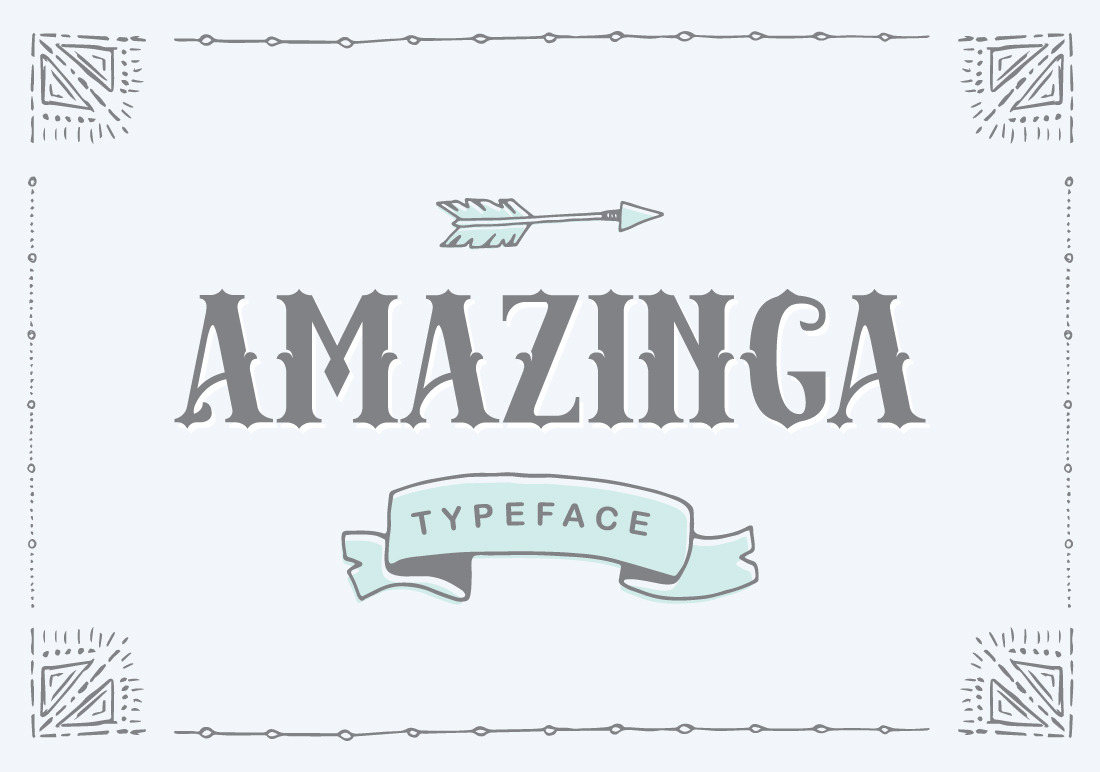
Amazinga Typeface
Introducing the Amazinga Typeface, display serif font with Victorian style. This font good for vintage design, Display, t-shirt, logo, labels, posters and etc.